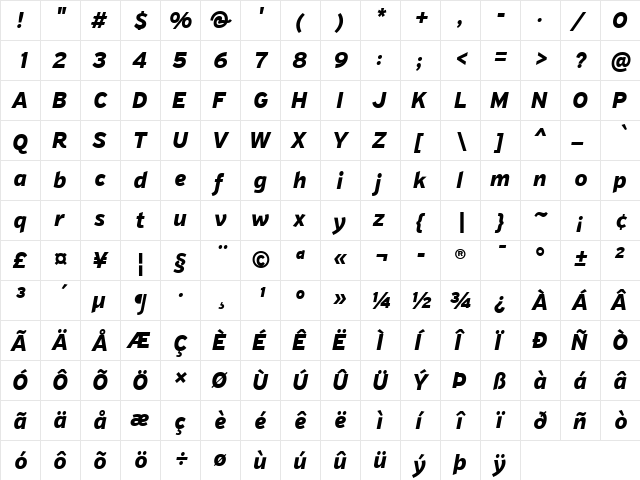
PF Highway Sans Pro Bold Italic
Bold Italic · Parachute蠗orldwide Panos Vassiliou ·
Design Context for PF Highway Sans Pro Typeface
PF Highway Sans Pro is a composed and adaptable typeface that performs quietly and consistently across a wide range of design contexts. Its italic angle brings a sense of urgency and motion to the letterforms. The heavy weight commands attention and anchors typographic hierarchies.